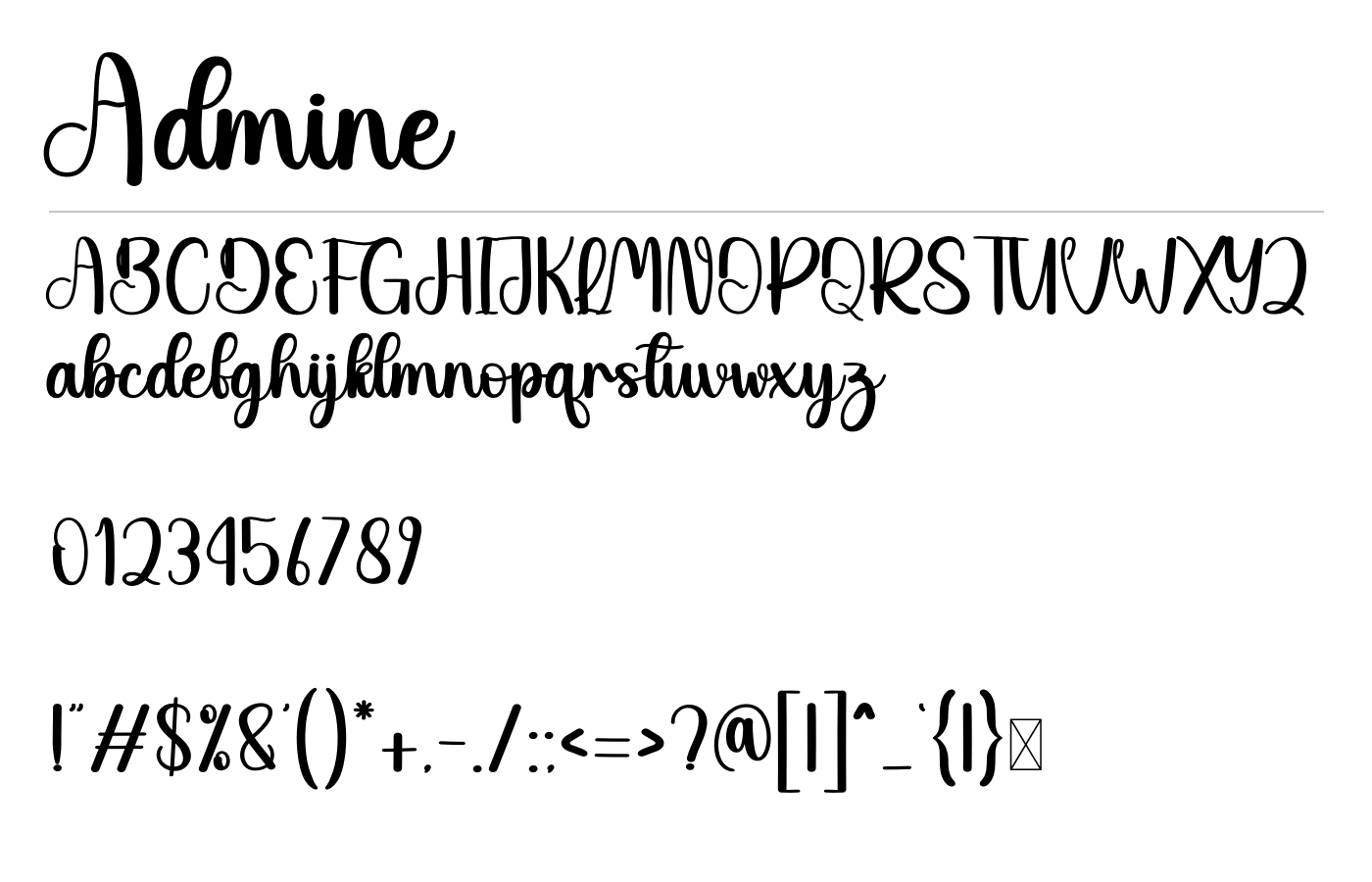
Admine is a playful and elegant script font with a hand-drawn feel, featuring smooth, curvy strokes and a light to regular weight. Its distinct letterforms, including single-story ‘a’ and ‘g’, combined with tall, narrow proportions, give it a whimsical yet refined personality, ideal for creative branding, invitations, and casual editorial uses. This font works well where a friendly, approachable style is desired without sacrificing sophistication.
Admine Font
About Admine Font